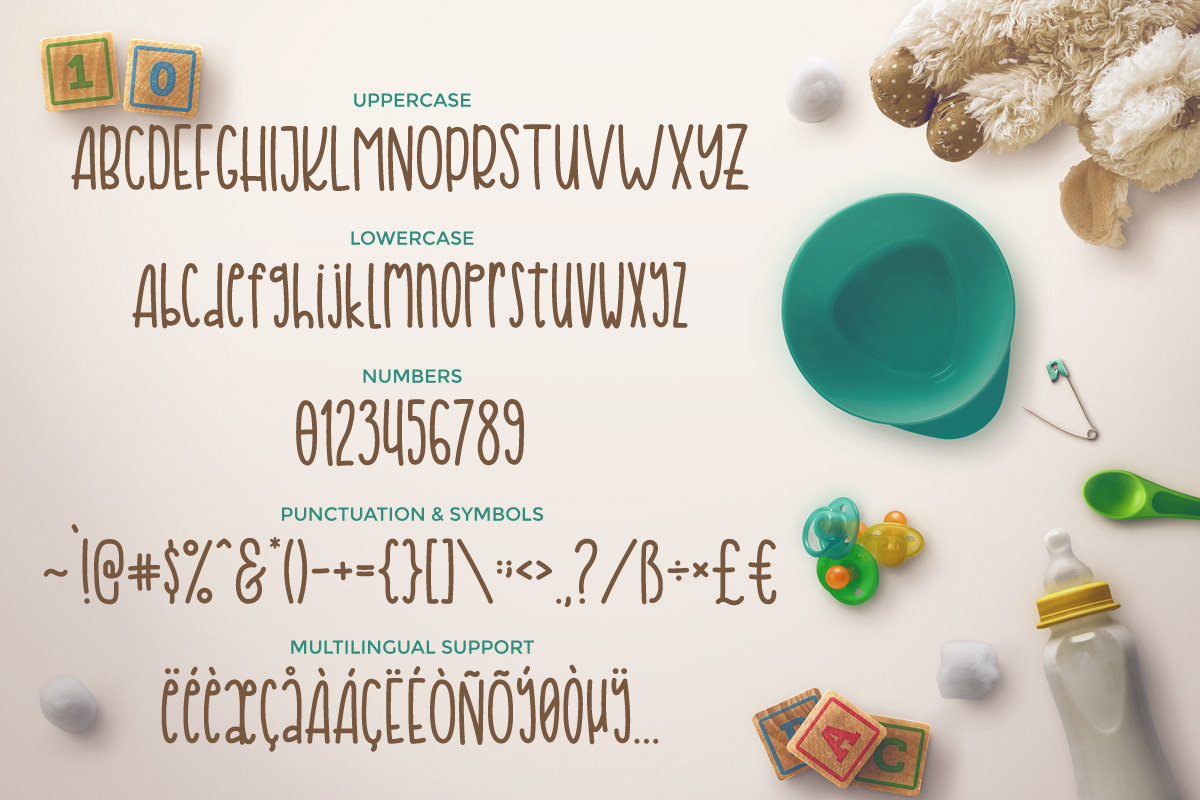
Young Love
Introducing Young Love!
Young Love is a brand new modern handwritten font. Young Love is perfectly suited to stationery, logos, t-shirt, paper, print design, website header, photo frame, flyer, music cover, poster, image slider and much more.
Includes multilingual support